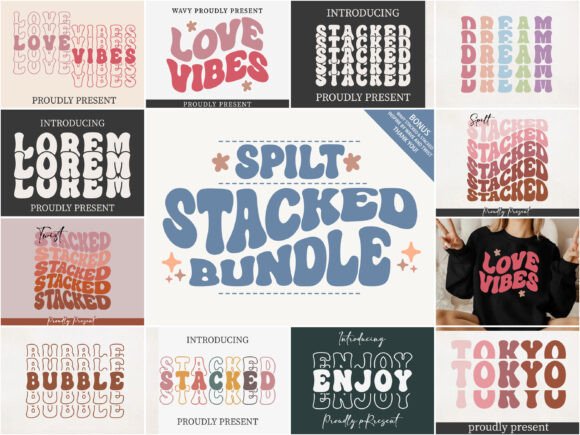
Exploring the Spilt Stacked Bundle for Modern Design
Finding a font that instantly injects personality and retro flair into a project can feel like striking gold. The Spilt Stacked Bundle offers exactly that, presenting a groovy font style with a distinctive stacked effect designed to make text pop. This isn't just another display font; it’s a versatile tool for creating trendy, custom text designs that resonate with a fun, contemporary audience.
The Groovy Stacked Effect: More Than Just a Typeface
At its core, the Spilt Stacked Bundle is a premium font built for impact. Its defining feature is the stacked arrangement, where characters are designed to sit vertically, creating a bold, condensed look. This style is reminiscent of vintage signage and psychedelic art, yet it feels fresh and applicable to modern branding. The "Wavy" component adds an incredibly cool display element, featuring fluid lines and alternate glyphs. These alternates are crucial, allowing designers to swap out letters to avoid repetition and craft a truly bespoke look for headlines or logos. This flexibility makes it a valuable design asset for anyone looking to move beyond standard sans serif or serif fonts.
Creative Applications for Logos and Brand Identity
When building a brand identity, typography sets the tone before a single word is read. The Spilt Stacked Bundle excels in logo design for brands that want to project energy, creativity, and a touch of nostalgia. Its bold structure ensures memorability, which is essential for any logo. Consider it for:
- Startups and creative agencies aiming for a playful yet professional image.
- Food and beverage packaging, especially for craft beverages, snacks, or artisanal goods that benefit from a retro-modern vibe.
- Music festival posters or event branding where visual excitement is paramount.
The key is to let the font do the heavy lifting in the headline, pairing it with a cleaner, more neutral body font for readability.
Designing for Impact: Posters, Packaging, and Social Media
Visual hierarchy is critical in design, and a strong display font like this one commands attention. For poster design, the stacked effect creates a powerful focal point, drawing the eye from across a room. In packaging design, it helps products stand out on crowded shelves. The alternate glyphs are particularly useful here, enabling you to create unique variations for different product lines or seasonal promotions while maintaining a cohesive look.
On social media, where scrolling is rapid, a bold typeface is non-negotiable. Use the Spilt Stacked Bundle for Instagram graphics, YouTube thumbnails, or Pinterest pins to stop the scroll. Its fun, engaging style is perfect for announcing sales, launching new products, or creating shareable quotes.
Practical Tips for Effective Usage and Pairing
To use this font effectively, context is everything. Its high visual impact means it’s best suited for headlines, subheadings, and short bursts of text rather than long paragraphs. Scalability is a strength; its clear, bold forms ensure it remains legible when sized up for banners or down for merchandise like t-shirts and tote bags.
For font pairing, contrast is your friend. Complement the Spilt Stacked Bundle with a simple sans serif font like Helvetica, Open Sans, or Lato for body copy. This creates a clean visual hierarchy. Alternatively, a subtle script font can add a touch of elegance in supporting text, though use it sparingly to avoid visual clutter. Always test your pairings at the actual size they’ll be viewed to ensure harmony.
Choosing the right typography is a fundamental step in the design process that influences perception and professionalism. The Spilt Stacked Bundle, with its unique groovy character and flexible alternates, provides a compelling option for projects that need to convey fun, creativity, and a custom feel. By thoughtfully applying its strengths to appropriate contexts and pairing it wisely, you can elevate your designs and create visuals that truly resonate with your audience.